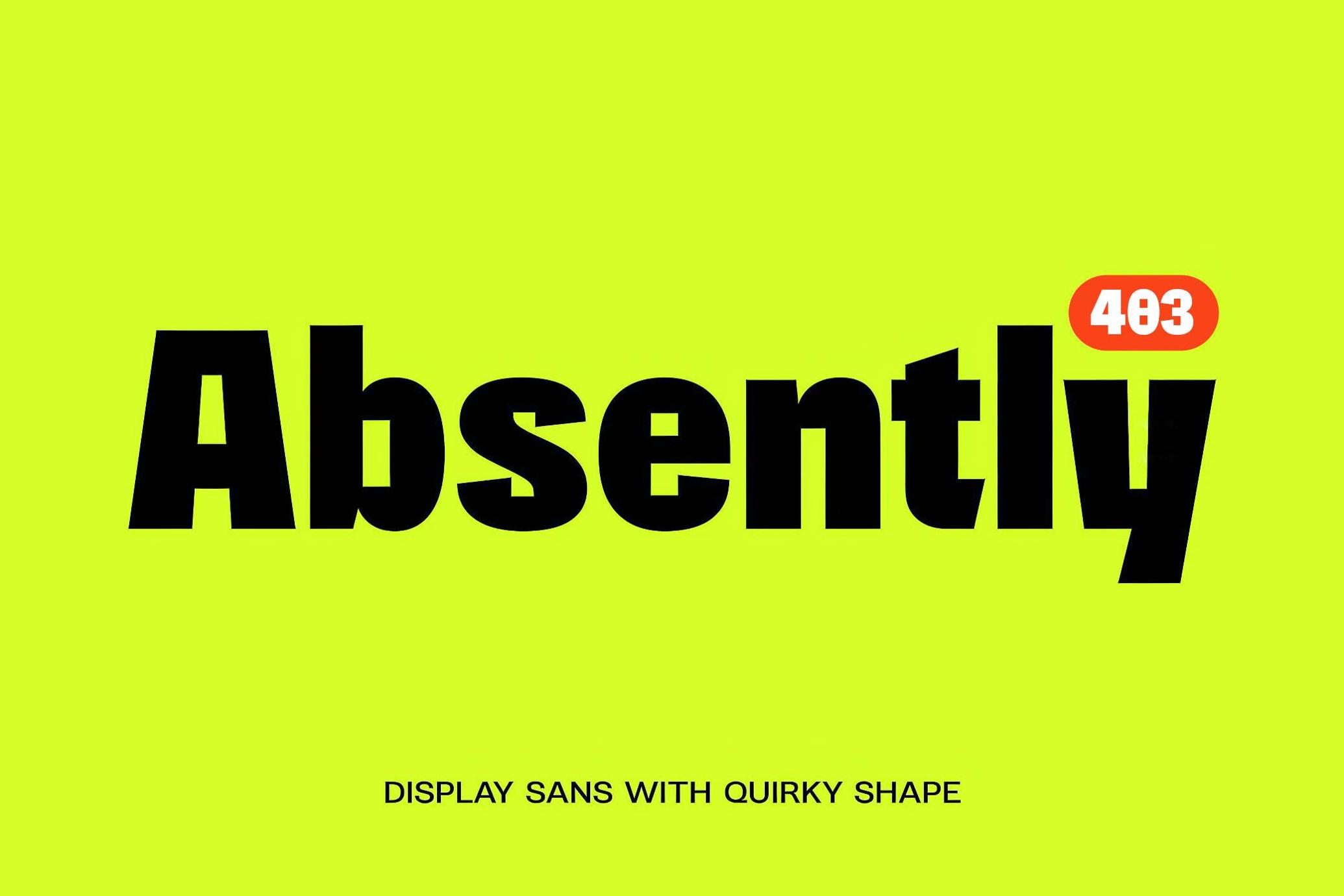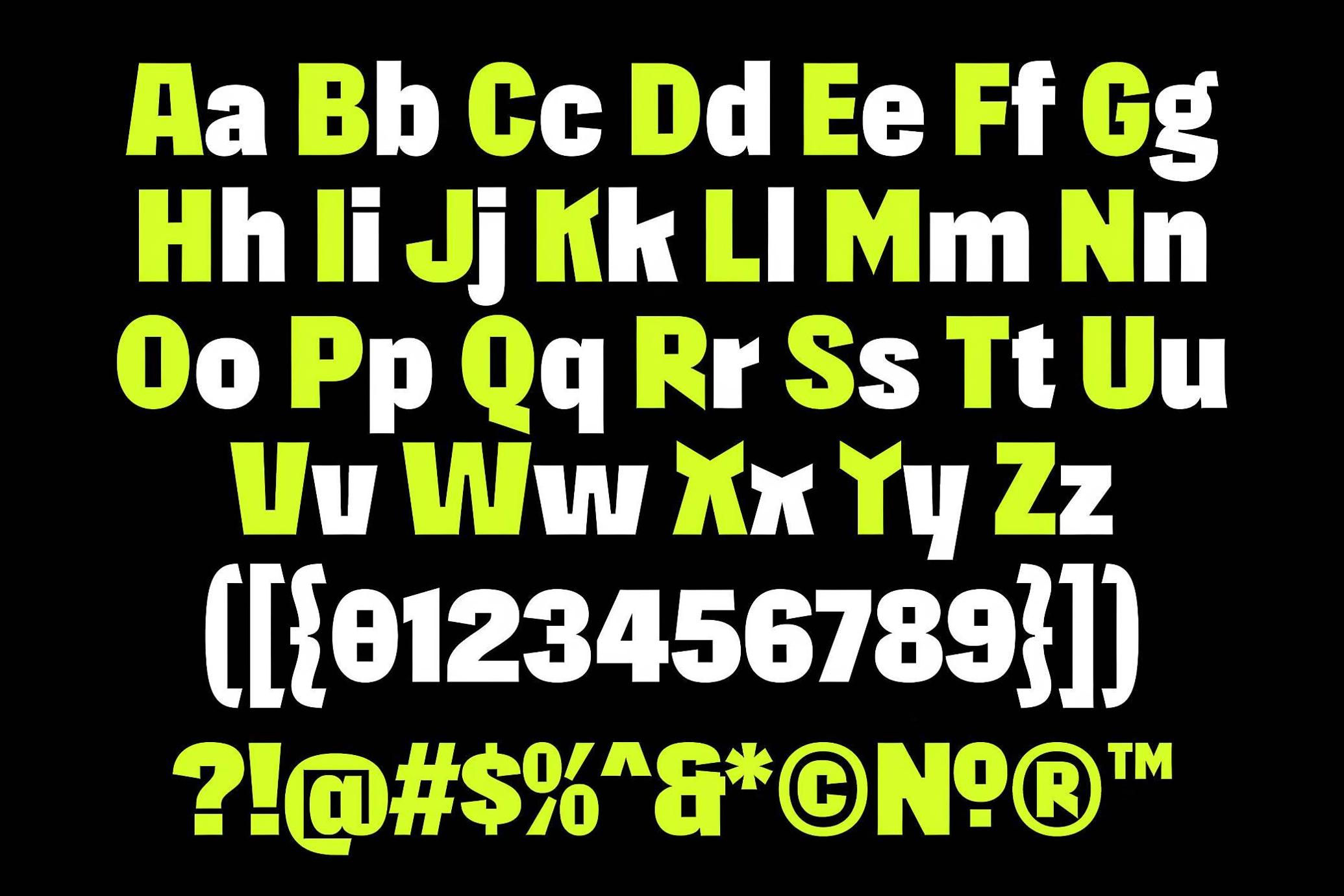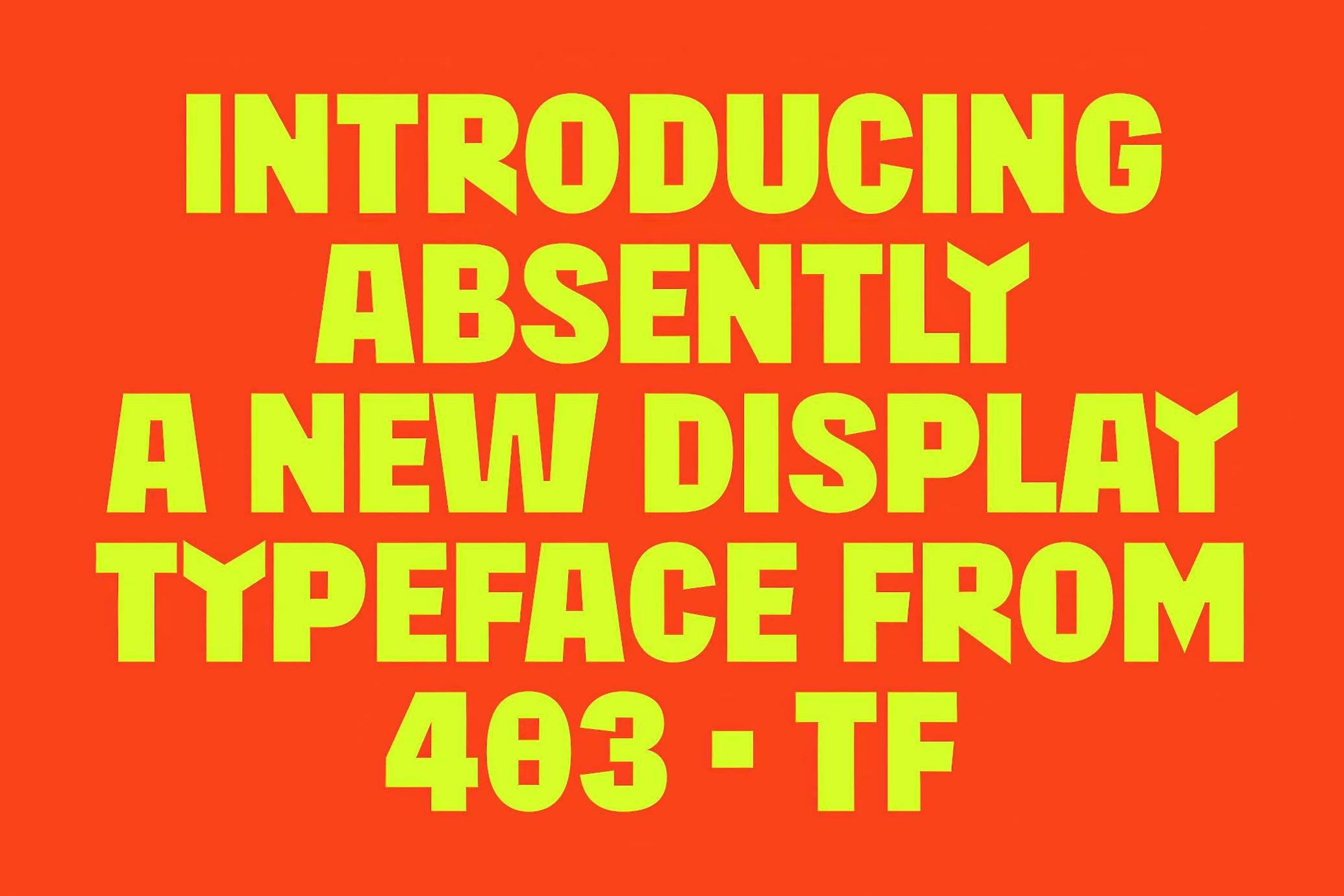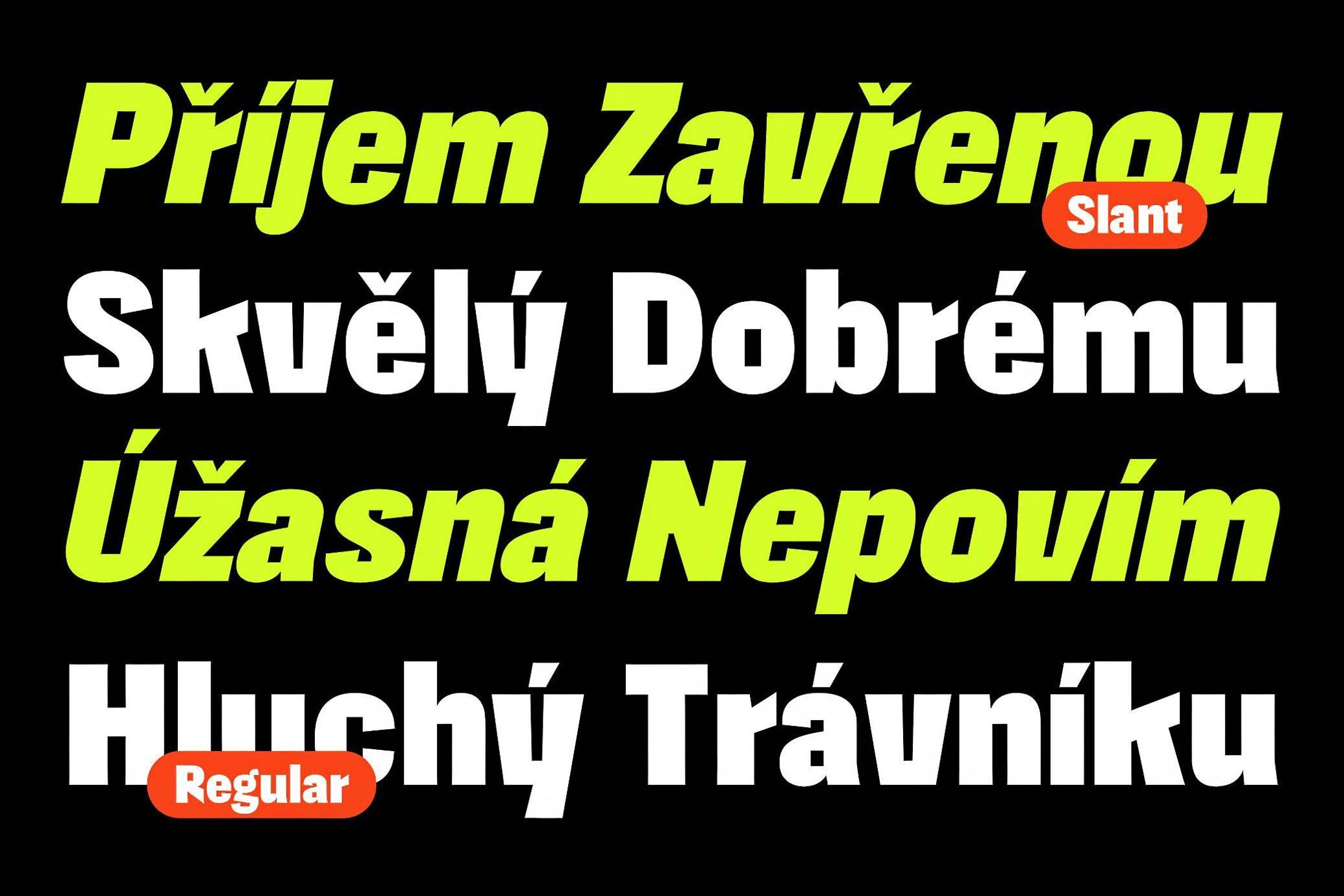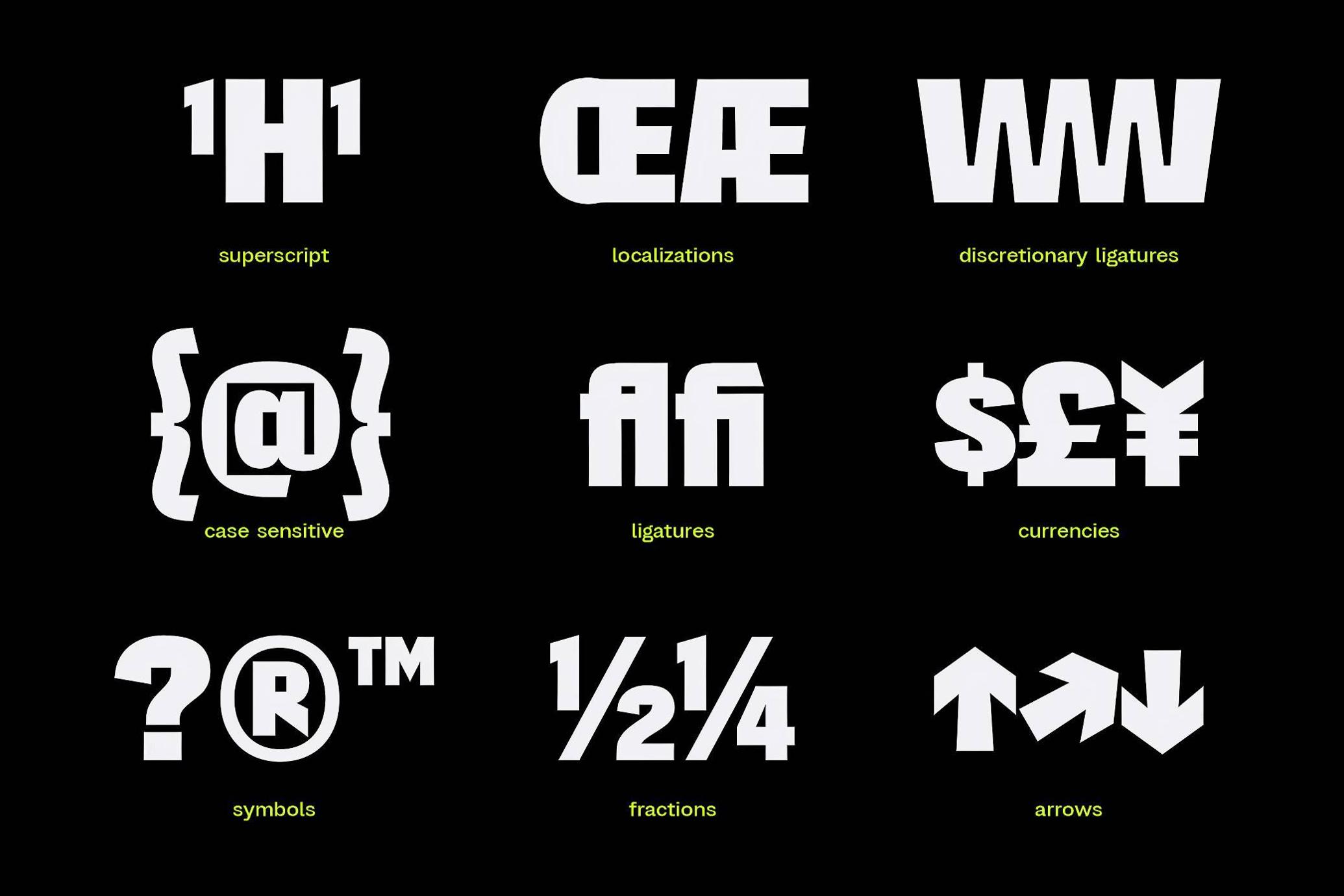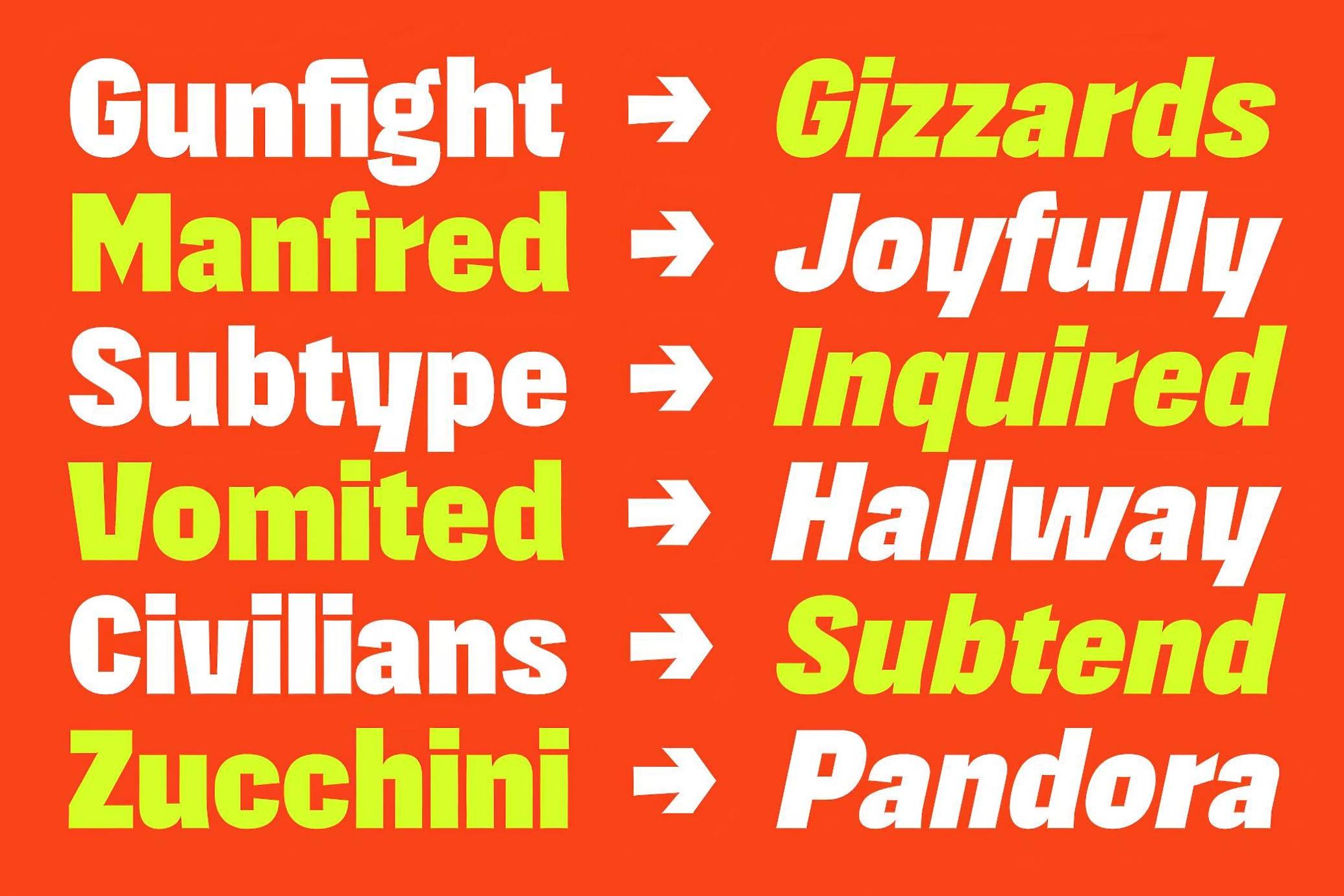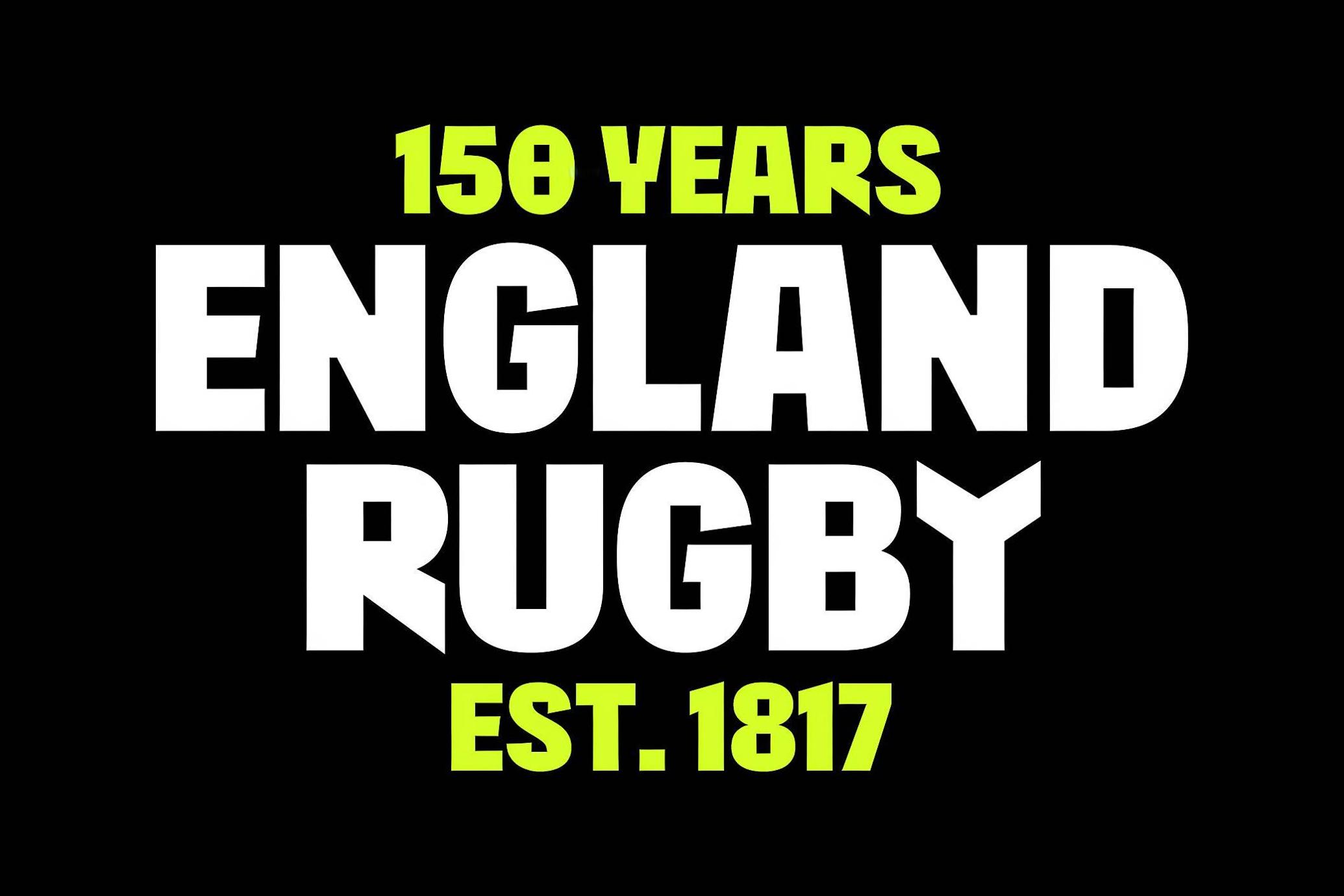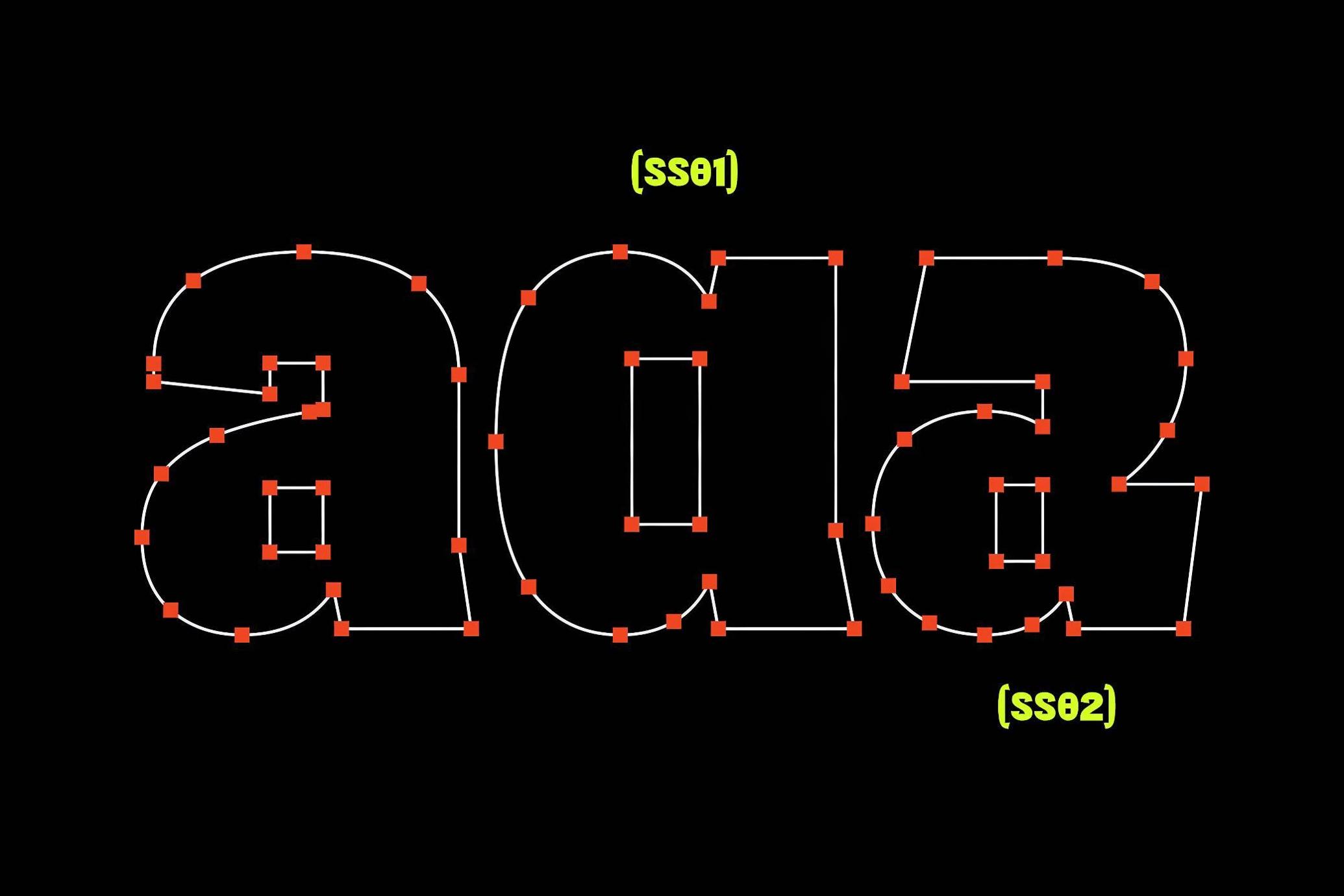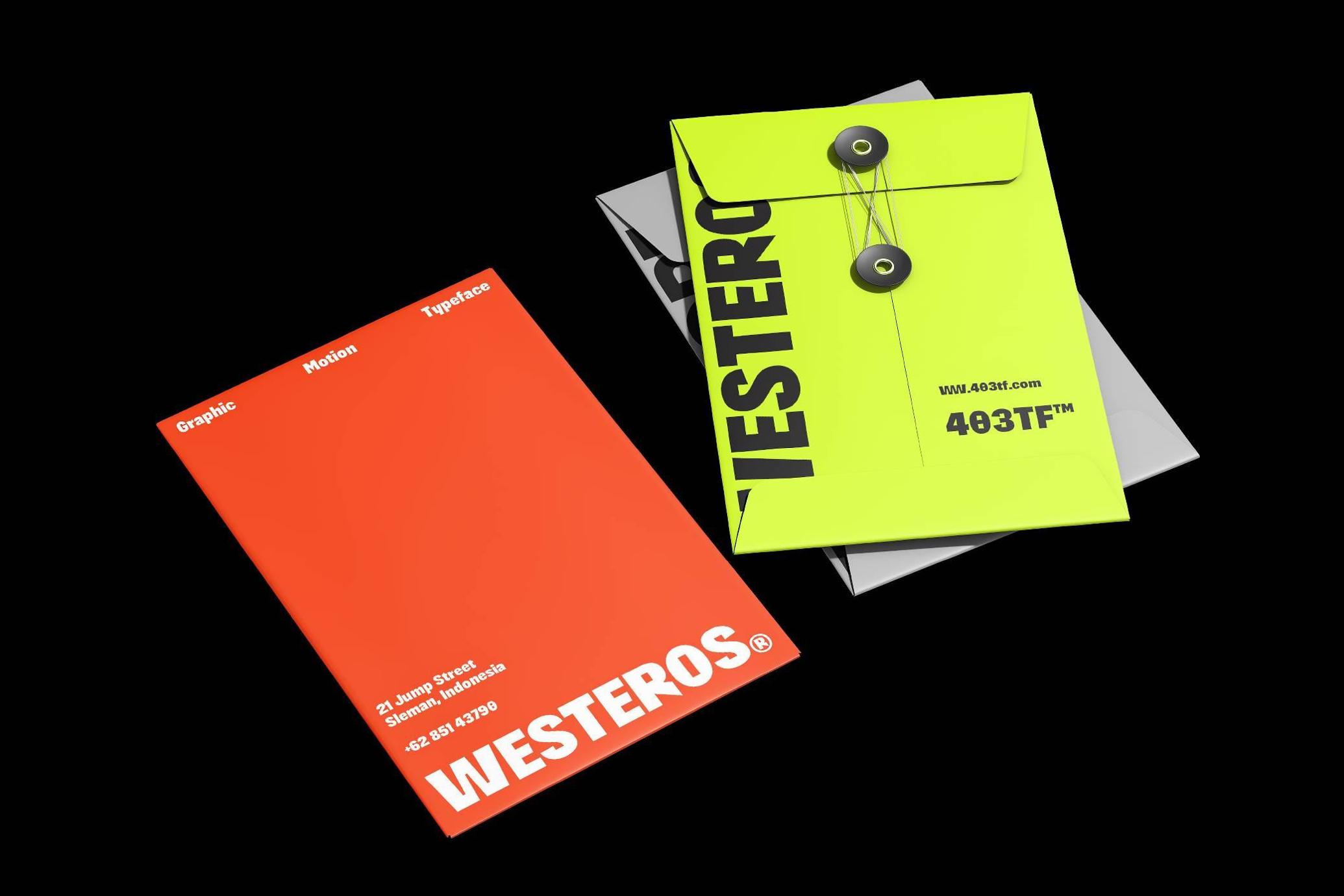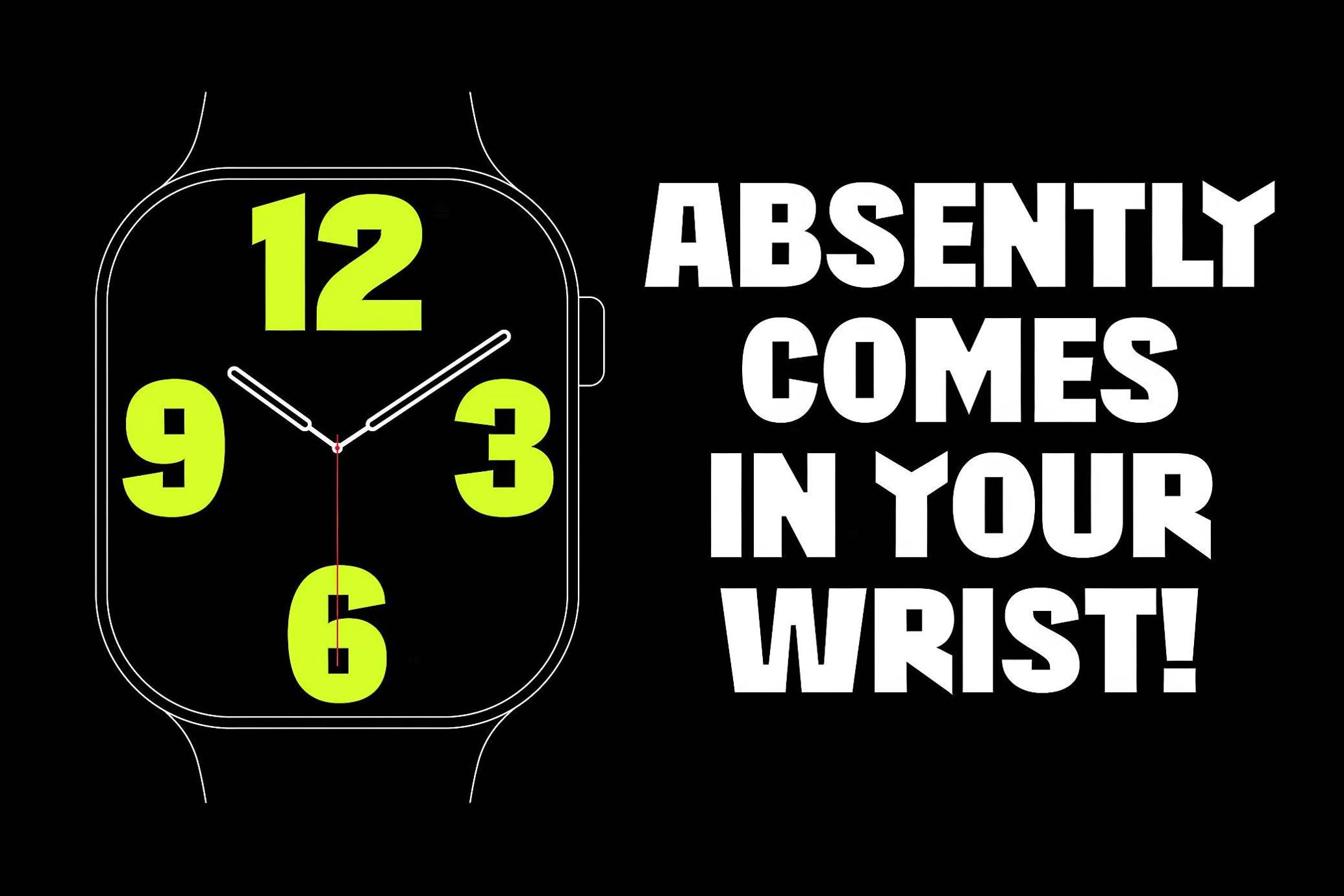
403 Absently Display Font
Slant
Absently is Helvetica's and a meme's lovechild. Its quirky angles and oddball ligatures channel everything from brutalist posters to early 2000s UI, with a notification bubble that screams "design emergency." Available in Regular and Slant, this font comes fully loaded with uppercase, lowercase, symbols, arrows, currency glyphs, multilingual glyphs, and more. It’s loud, blocky, and slightly off its rocker in the best way possible. Use it for headlines, streetwear logos, T-shirt designs, or a punchy sticker pack, this font brings maximal energy to minimalist grids.